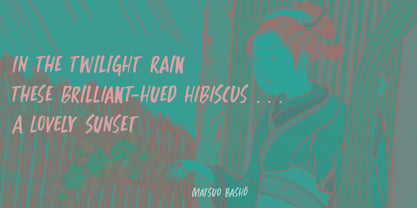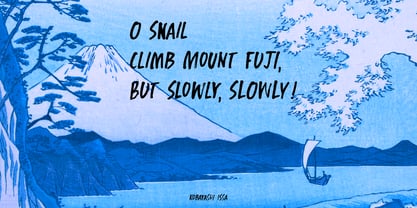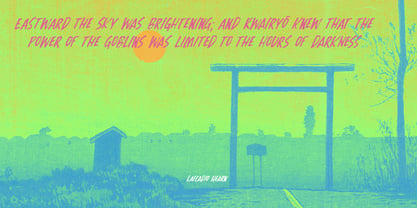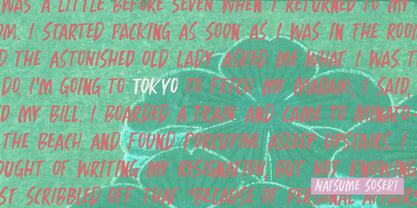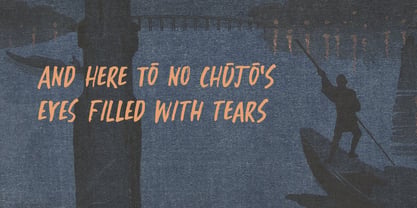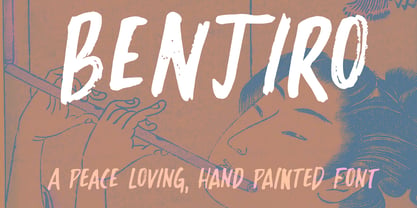
Benjiro Pro
by Hanoded
The Benjiro Pro Font Family was designed by David Kerkhoff and published by Hanoded. Benjiro Pro contains 2 styles and family package options. More about this family
Benjiro is a Japanese name for boys. It means ‘peaceful’ or ‘enjoy peace’, which is something we all really need right now. I settled on a Japanese name, as this font was made with ink and a broken bamboo satay skewer. A few years ago, I made my first font with a broken satay skewer and called it Buntaro, which is also a Japanese boys name, so I thought I’d stick to that tradition.
Benjiro is a rough, all caps brush font. I used really cheap supermarket skewers, because they break in all the wrong places, making it a joy to work with, as you never know what you’ll end up with!
Benjiro comes with extensive language support and a nice set of alternates for the lower case glyphs.
Designers: David Kerkhoff
Foundry: Hanoded